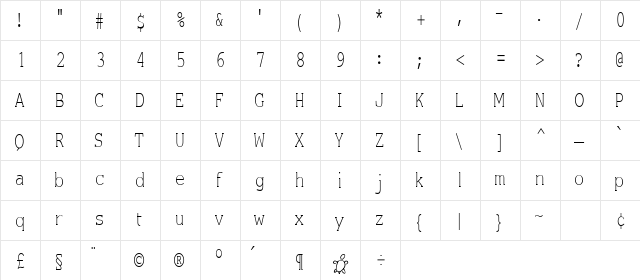
Einzig Serif
| Style | Serif |
Design Context for Einzig Typeface
Einzig carries the refined structure of traditional serif typography, with bracketed terminals and considered proportions that communicate credibility and craft.